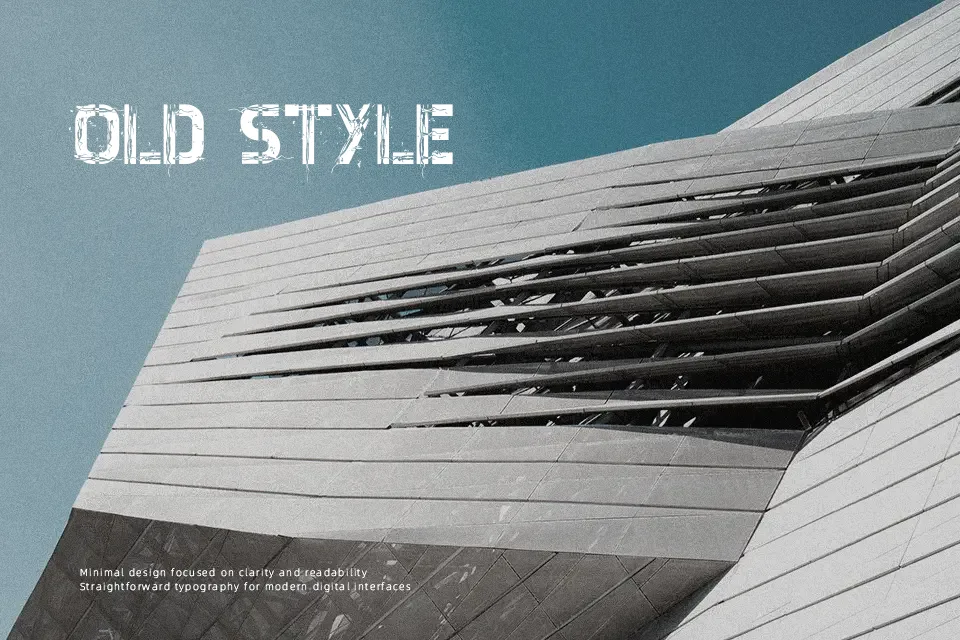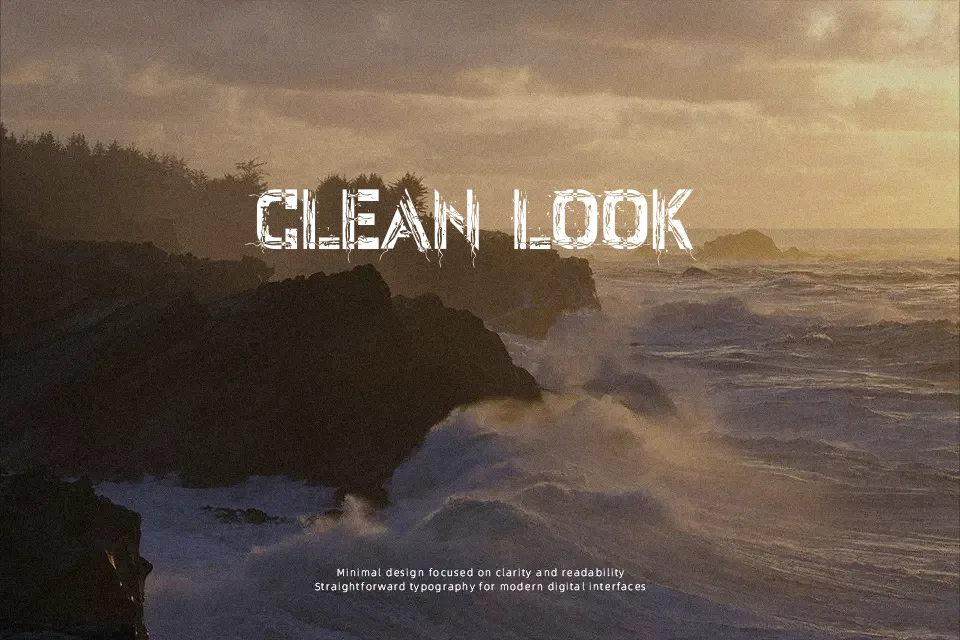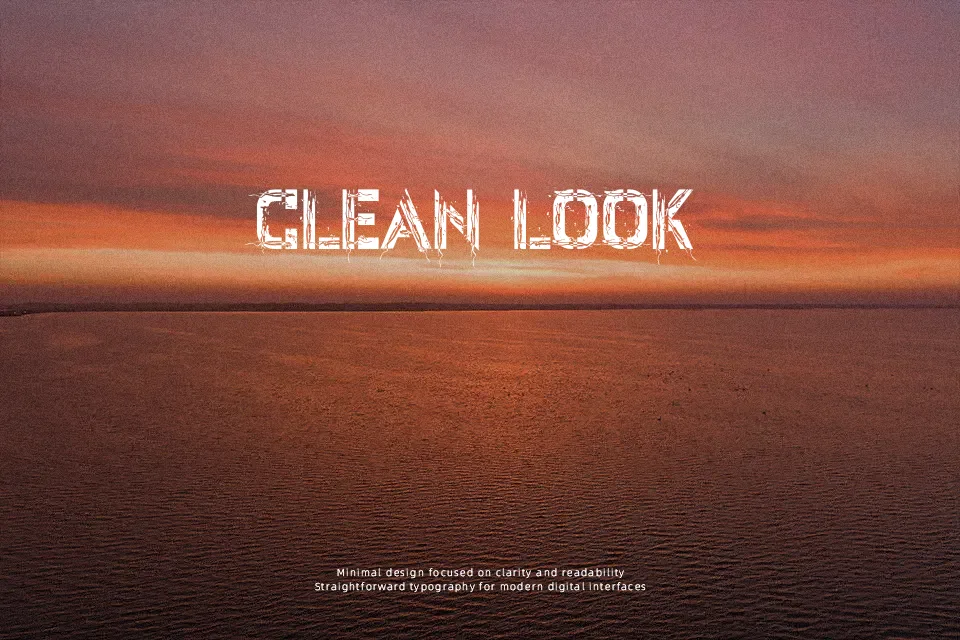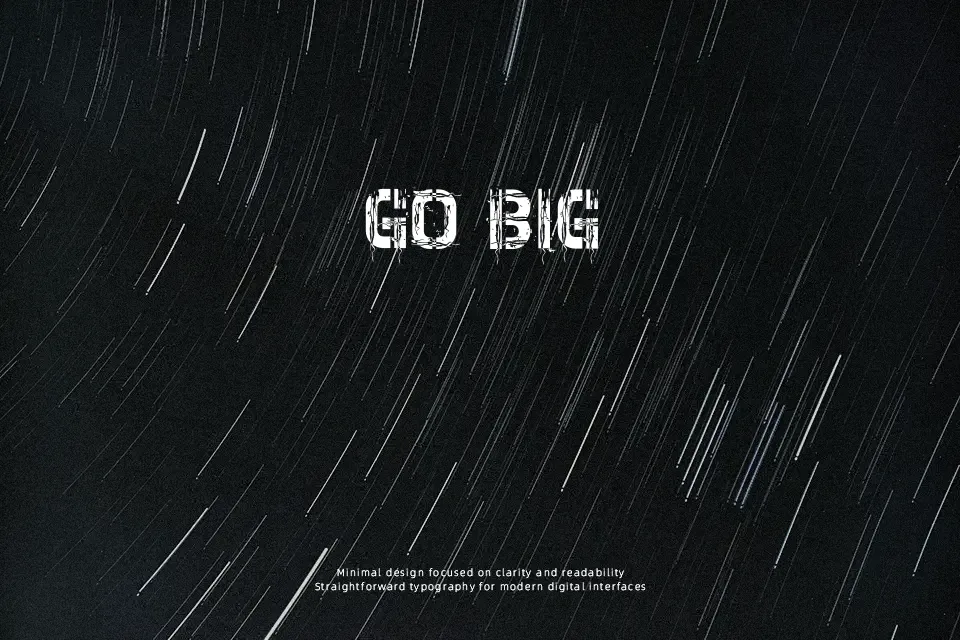
Net Font
Large, blocky characters are carved into jagged segments, creating a glitch-like, shattered texture across each glyph. The strokes are heavy and consistent in thickness, with very little internal space, so text appears compact and visually intense at display sizes. Spacing runs tight, letting letters lock together into solid word shapes rather than airy lines. This visual density can add impact to posters or title screens, but it also means smaller sizes quickly lose definition. In practice, it works best when a few words need to feel rough and aggressive, while continuous paragraphs or fine captions become tiring to scan.
horror or glitch game title screens,heavy metal or industrial music cover art,grunge or cyberpunk event posters,edgy website hero graphics
long paragraph text or articles,formal corporate reports or presentations,small ui labels or navigation text,detailed technical documentation
Perfect for gaming, headline, and logo, with a dark and decorative style.